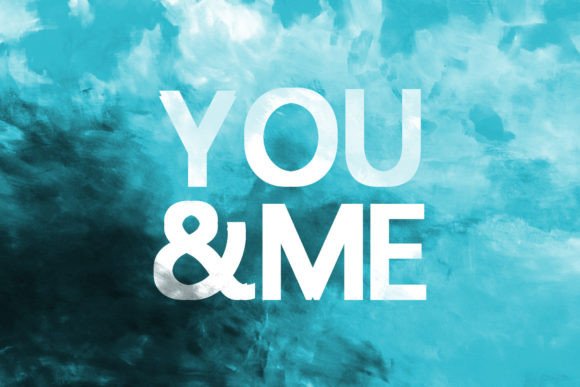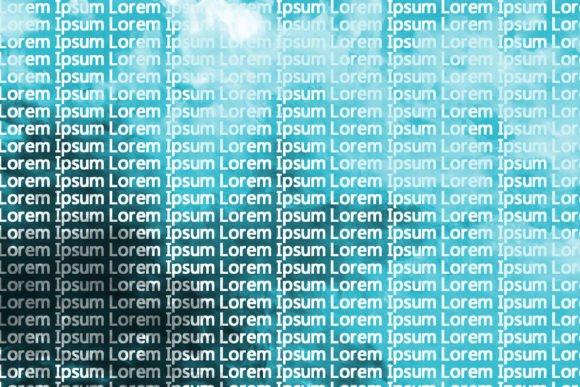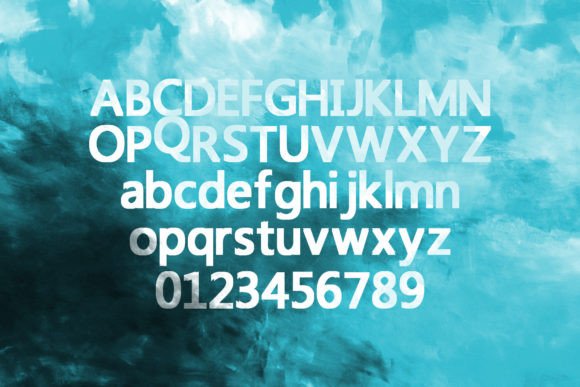
Introducing Double Tebal Font: The Fun and Quirky Handwritten Sans Serif Font for Crafty Ideas
Are you a designer or crafter looking for a unique and playful font to add to your creative projects? Look no further than Double Tebal Font! This fun and quirky handwritten sans serif font is perfect for adding a touch of personality to your crafty ideas. In this article, we’ll take a closer look at Double Tebal Font, its features, and how you can use it to take your designs to the next level.
What is Double Tebal Font?
Double Tebal Font is a handwritten sans serif font that is both fun and quirky. Its unique and playful design makes it perfect for a variety of creative projects, from crafting and DIY tutorials to social media graphics and blog posts. The font’s sans serif design gives it a clean and modern look, while its handwritten feel adds a touch of personality and whimsy.
Key Features of Double Tebal Font
So, what makes Double Tebal Font so special? Here are just a few of its key features:
- Handwritten sans serif design: Double Tebal Font has a unique handwritten feel that sets it apart from other sans serif fonts.
- Fun and quirky: This font is perfect for adding a touch of personality to your designs.
- Clean and modern look: The sans serif design gives Double Tebal Font a clean and modern look that’s perfect for a variety of creative projects.
- Easy to read: Despite its playful design, Double Tebal Font is easy to read, making it perfect for use in body text.
How to Use Double Tebal Font in Your Designs
So, how can you use Double Tebal Font in your designs? Here are a few ideas to get you started:
- Crafting and DIY tutorials: Double Tebal Font is perfect for crafting and DIY tutorials, where its playful design can add a touch of personality to your instructions.
- Social media graphics: Use Double Tebal Font to add a touch of whimsy to your social media graphics, from Facebook posts to Instagram stories.
- Blog posts: Add a touch of personality to your blog posts with Double Tebal Font, perfect for headings, subheadings, and body text.
- Invitations and party decor: Double Tebal Font is perfect for creating fun and playful invitations and party decor, from birthday parties to baby showers.
Tips for Using Double Tebal Font
Here are a few tips for using Double Tebal Font in your designs:
- Use it sparingly: While Double Tebal Font is fun and playful, it can be overwhelming if used too much. Use it sparingly to add a touch of personality to your designs.
- Pair it with other fonts: Double Tebal Font pairs well with other fonts, from sans serif fonts like Arial to script fonts like Pacifico.
- Experiment with colors: Double Tebal Font looks great in a variety of colors, from bright and bold to pastel and soft.
| Font Name | Double Tebal Font |
| Author | Nickhard |
Double Tebal Font is a fun and quirky handwritten sans serif font that’s perfect for adding a touch of personality to your crafty ideas. With its unique design, clean and modern look, and easy-to-read text, it’s perfect for a variety of creative projects. Whether you’re a designer or crafter, Double Tebal Font is sure to become a favorite in your font collection. So why not give it a try and see the results for yourself?
Add Double Tebal Font to your crafty ideas and enjoy the results! Its playful design and modern look make it the perfect addition to any creative project. So go ahead, get creative, and have fun with Double Tebal Font!